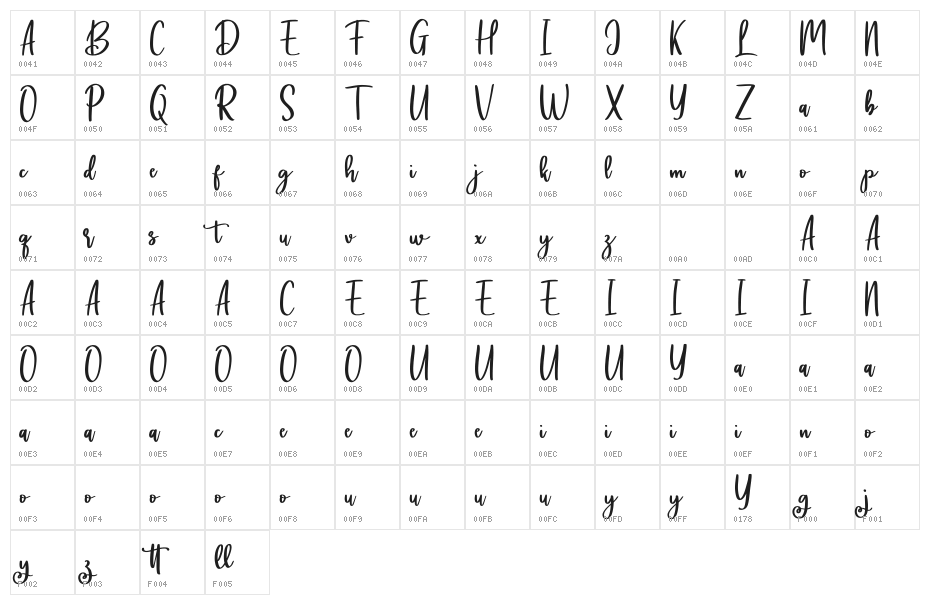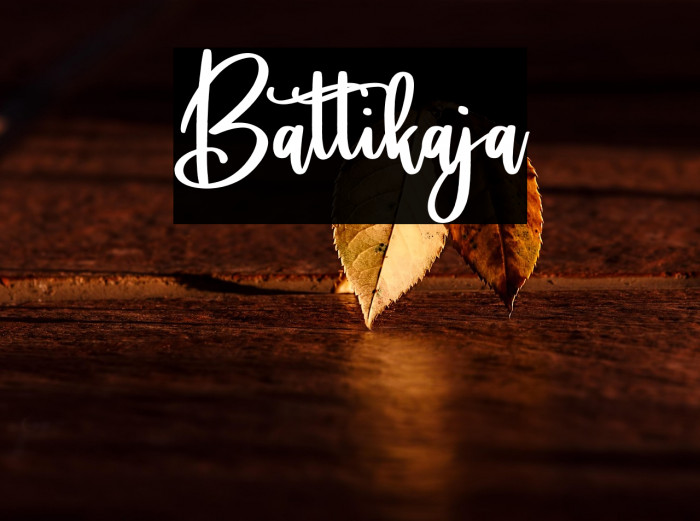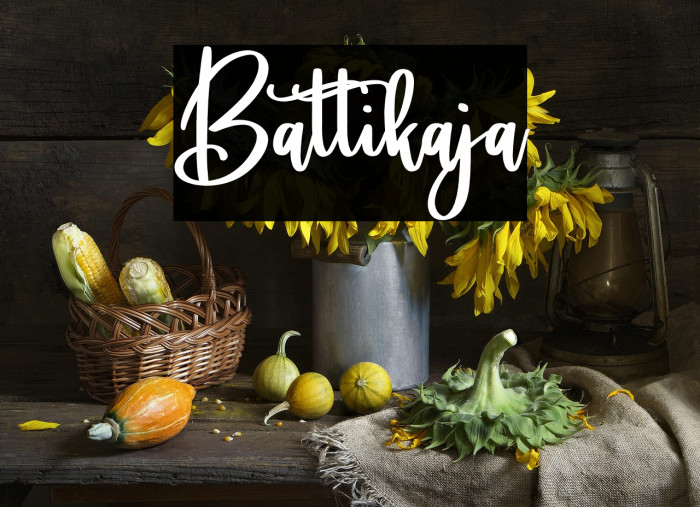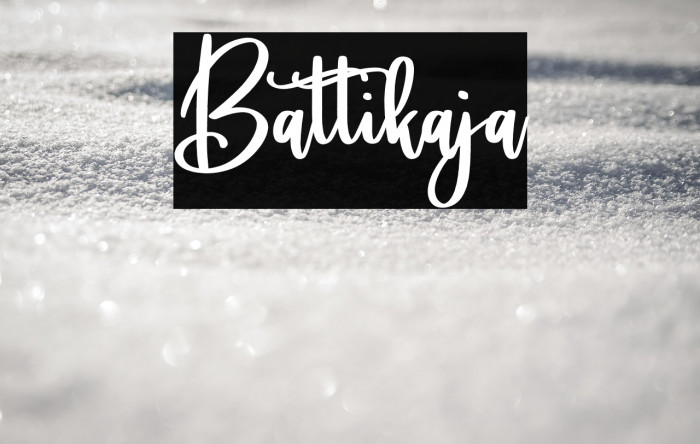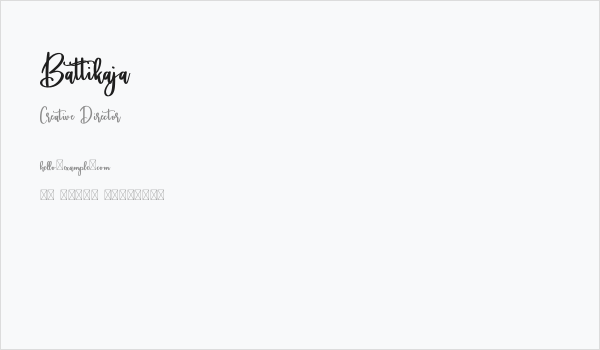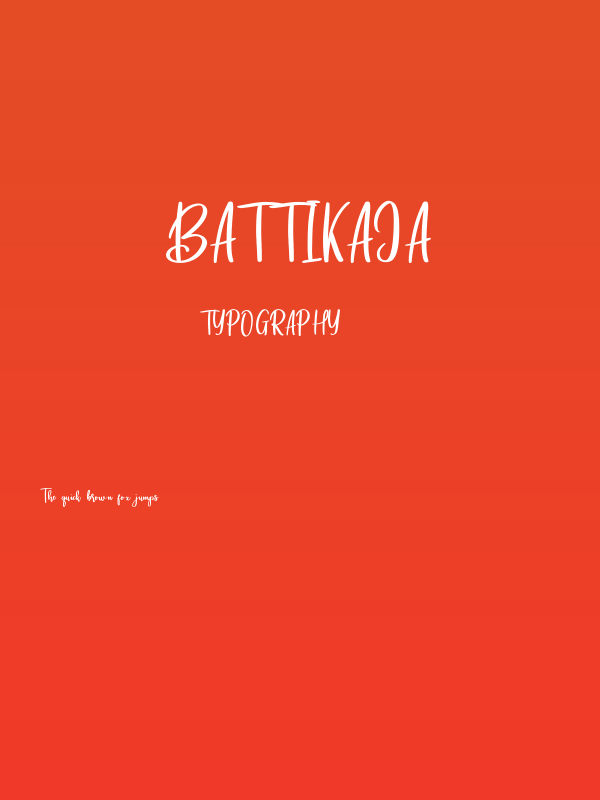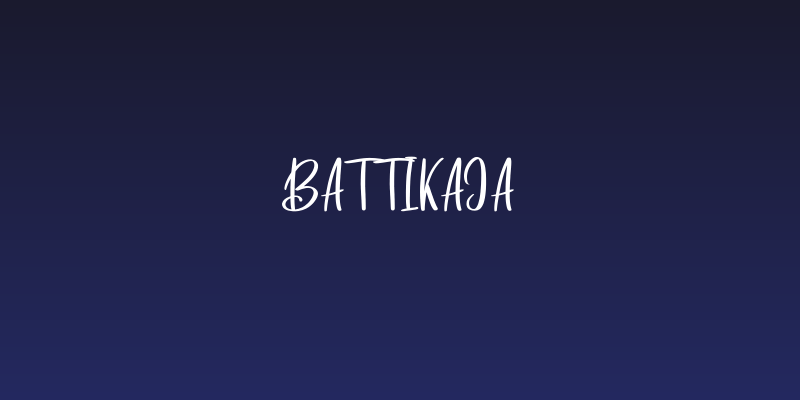
Battikaja Font
Battikaja Description
This font features a playful and artistic script style with a handwritten appearance. The uppercase letters are tall and slightly narrow, with a whimsical flair that adds a sense of movement and energy. The lowercase letters are more rounded and connected, enhancing the handwritten feel. The strokes vary in thickness, providing a medium contrast that adds to the dynamic look of the font. The overall style is modern and decorative, making it suitable for creative and expressive projects.
| Proposed Projects | Ideal for greeting cards, invitations, logos, and branding materials that require a personal and artistic touch. |